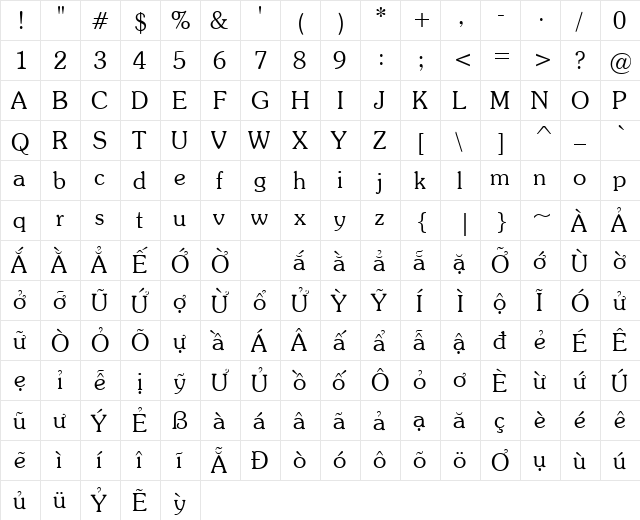
VPS Truong Sa Light Light
Design Context for VPS Truong Sa Light Typeface
VPS Truong Sa Light is a composed and adaptable typeface that performs quietly and consistently across a wide range of design contexts. Its slender proportions lend an understated elegance to any composition.
Pro Tip: Use VPS Truong Sa Light in both headline and body roles to test its range before committing to a single application.